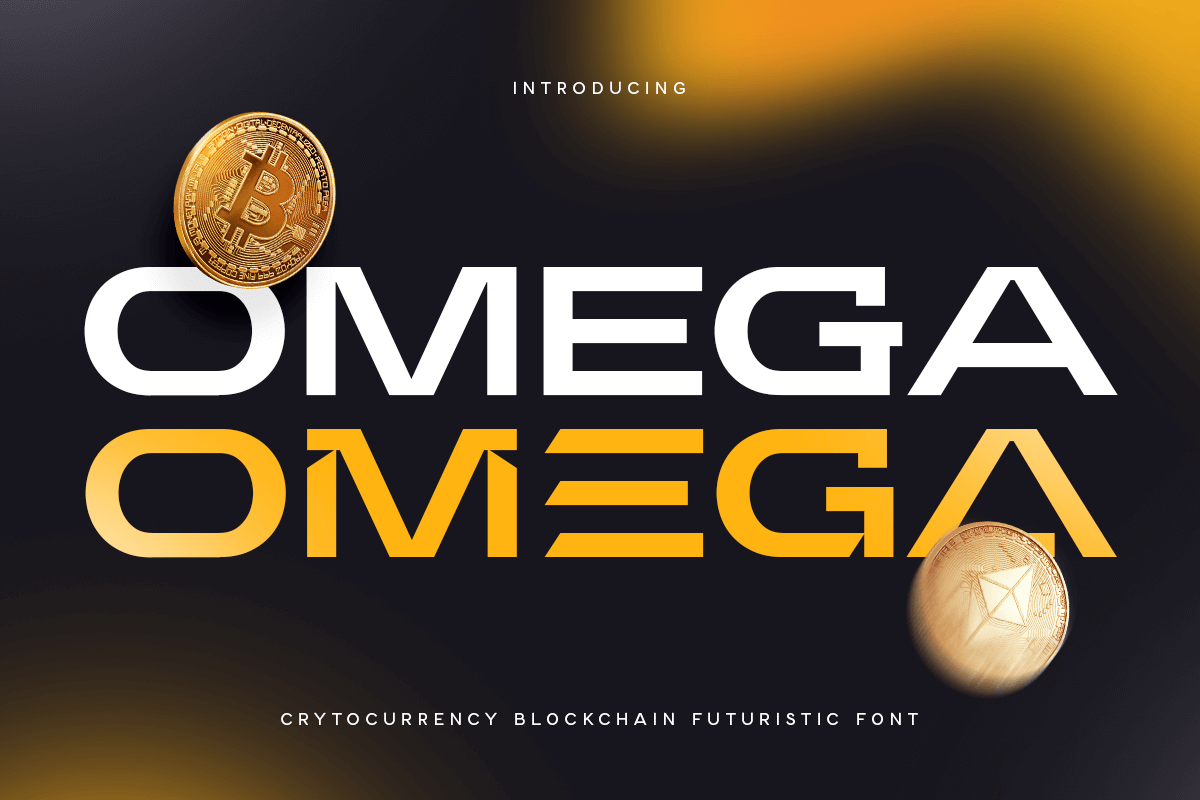
Omega
-Cryptocurrency Blockchain Futuristic Font
Omega is A Cryptocurrency Blockchain Futuristic Font created specifically for Sci-fi, Modern, and Technology designs. Its unique, futuristic styles make your typography stand out, ideal for Cryptocurrency, technology, film, and Sci-fi themes. Omega's modern aesthetics bring a tech-inspired feel to any project, perfect for expressing your main ideas.